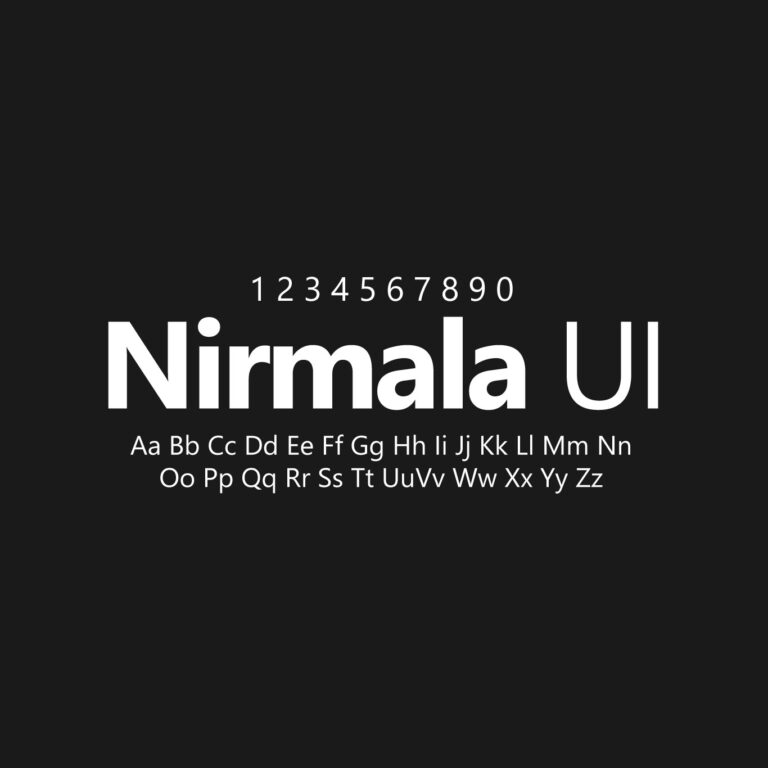
Nirmala UI is a Microsoft system UI typeface designed for clear screen readability and multilingual text support. It is commonly associated with Windows interface typography and works well for app interfaces, software layouts, menus, dashboards, documentation, presentations, localization previews and digital projects that need clean text rendering across multiple languages.
Font Name: Nirmala UI
Font Type: Sans Serif
Category: UI Font / Multilingual Sans Serif
Visual Style: Clean, readable, practical, multilingual, professional
Best For: UI design, software interfaces, dashboards, menus, documentation, localization previews and presentations
Developer: Microsoft